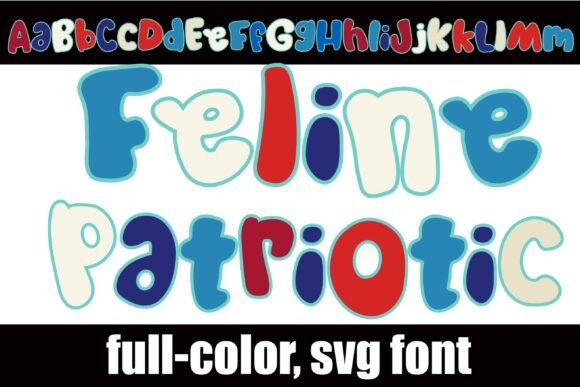
Feline Patriotic Font: A Whimsical and Versatile Full-Color Font
Are you looking for a font that can add a touch of personality and patriotism to your designs? Look no further than the Feline Patriotic Font, a full-color font that features a rounded, chubby, and whimsical design in Americana colors. In this article, we’ll take a closer look at this unique font and explore its features, benefits, and uses.
What is Feline Patriotic Font?
The Feline Patriotic Font is a full-color font that features a rounded, chubby, and whimsical design in Americana colors. The font comes with an alternate case of alternate colorings of each letter, which can be accessed through your system or Silhouette’s glyph map. This means that you can use the font to create a wide range of designs, from simple text logos to complex illustrations.
What are OpenType Full-Color (SVG) Fonts?
Benefits of Using Full-Color SVG Fonts
Full-color SVG fonts, like the Feline Patriotic Font, offer a range of benefits, including:
- Versatility: Full-color SVG fonts can be used for a variety of projects, from logos and branding to web design and print.
- Scalability: SVG fonts are vector-based, which means they can be scaled to any size without losing quality.
- High-quality: Full-color SVG fonts are high-quality and will not lose their resolution when scaled.
Why Choose Full-Color SVG Fonts?
If you’re looking for a versatile, high-quality font that can be used for a variety of projects, then a full-color SVG font, like the Feline Patriotic Font, is the perfect choice for you. With a full range of colors and styles to choose from, you can create anything from simple text logos to complex illustrations.
How to Use Feline Patriotic Font
- Experiment with different colors: The Feline Patriotic Font comes with a range of colors, so don’t be afraid to experiment and find the perfect combination for your design.
- Use the glyph map: The glyph map allows you to access alternate colorings of each letter, which can add an extra layer of creativity to your designs.
- Scale to any size: Because SVG fonts are vector-based, you can scale the Feline Patriotic Font to any size without losing quality.
The Feline Patriotic Font is a unique and versatile full-color font that can add a touch of personality and patriotism to your designs. With its rounded, chubby, and whimsical design in Americana colors, this font is perfect for a wide range of projects, from logos and branding to web design and print. Whether you’re a designer, artist, or DIY enthusiast, the Feline Patriotic Font is a great choice for anyone looking to add some creativity and flair to their designs.